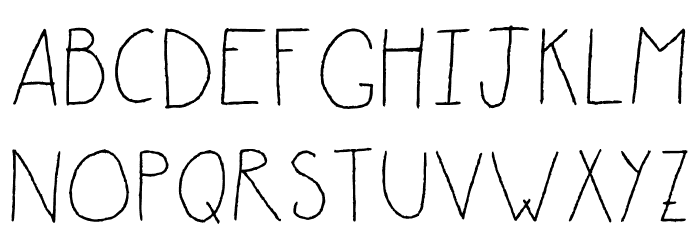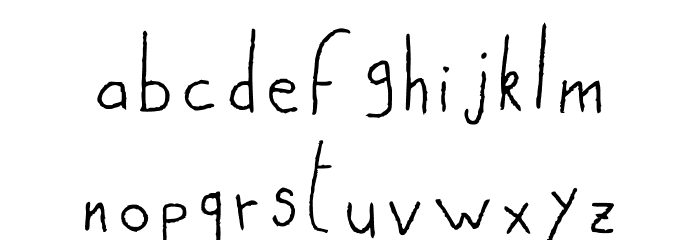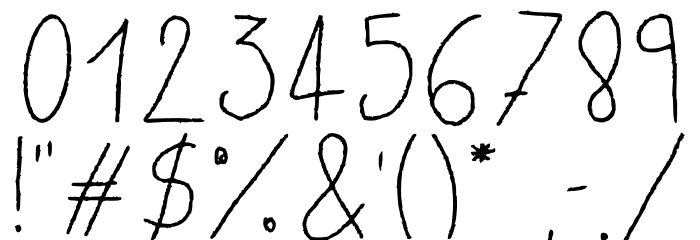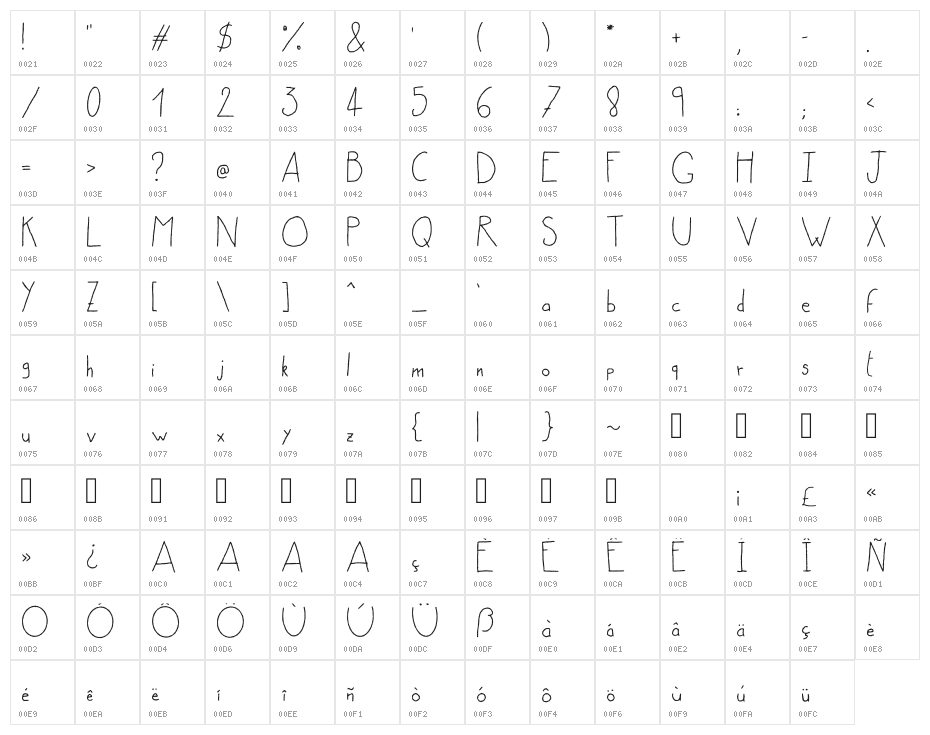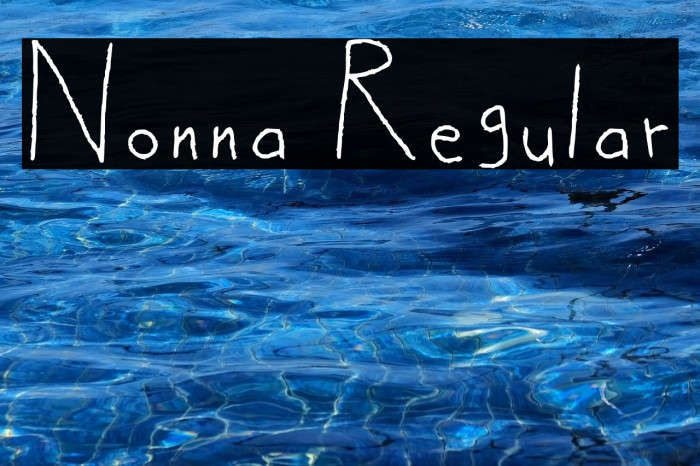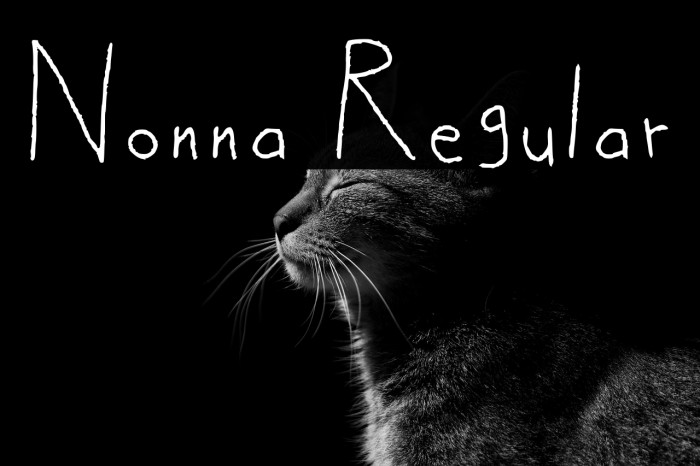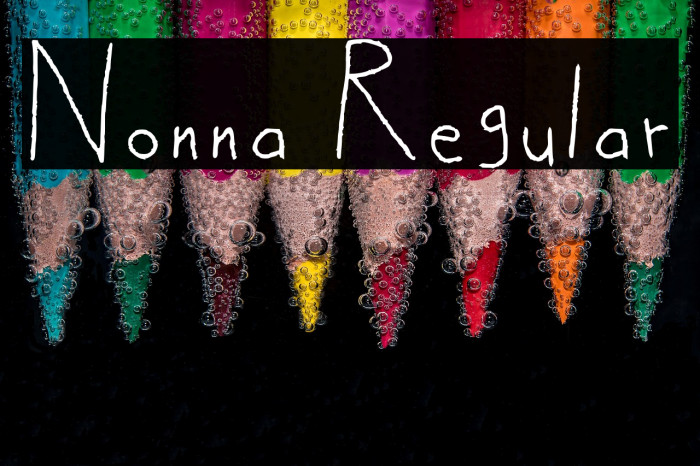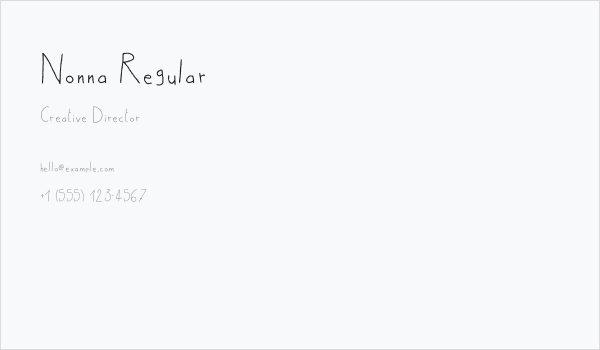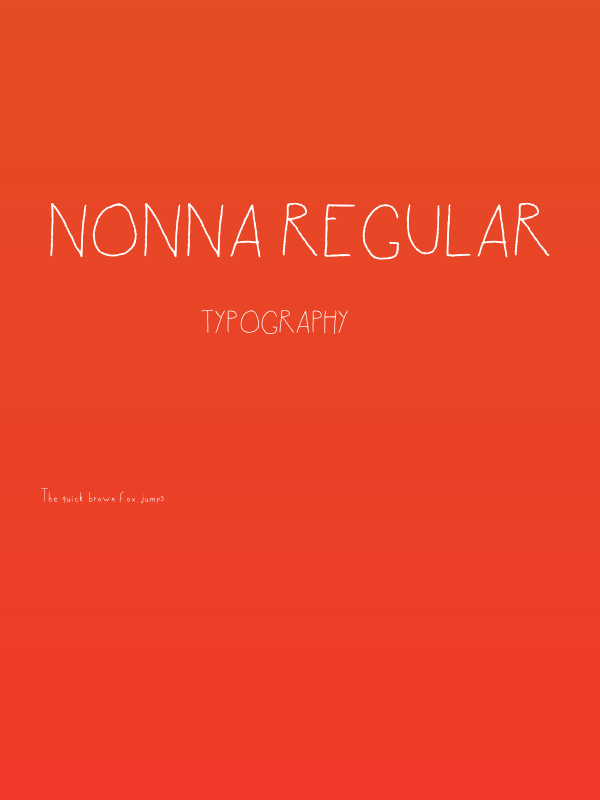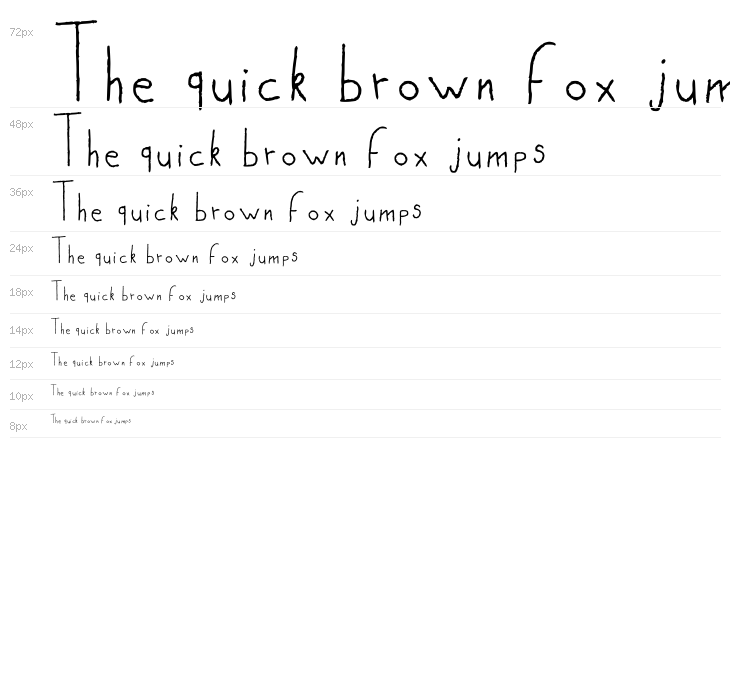
Nonna Regular Font
This font features a charming, hand-drawn aesthetic with a playful and informal style. The characters are slightly irregular, giving it a whimsical and approachable feel. The uppercase letters are tall and slender, while the lowercase letters maintain a consistent height with a slightly rounded appearance. The numerals are distinct and easy to read, complementing the overall casual vibe. Special characters are creatively designed, adding to the font's unique personality. This font is perfect for projects that require a personal touch, such as invitations, greeting cards, or children's books.
A playful, hand-drawn font with a whimsical and informal style.
- Proposed Projects: Ideal for invitations, greeting cards, children's books, and creative projects.